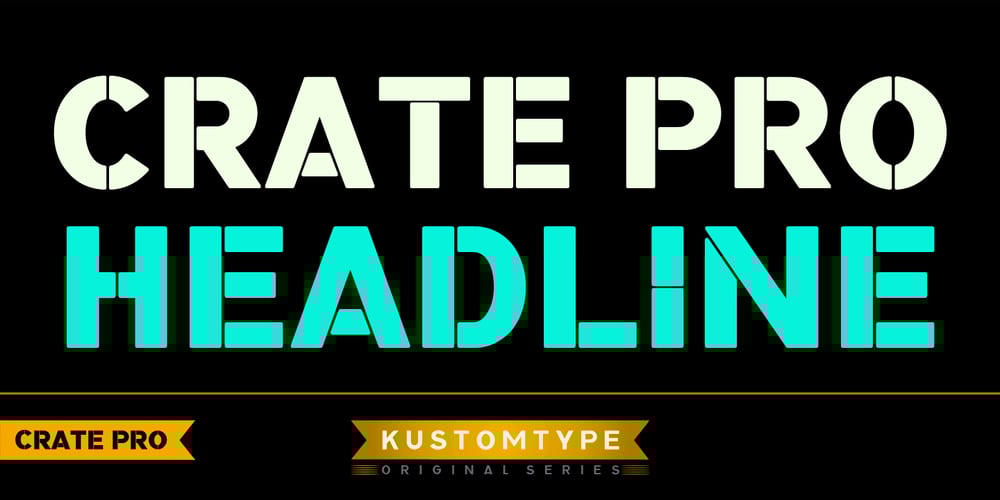
Crate Pro Font Family was designed by Coert De Decker and published by Kustomtype. Crate Pro contains 1 styles and family package options. Crate Pro is a brand-new stencil font with rounded edges and thick main strokes, all glyphs have been contemplated very carefully so that all characters match in a well-balanced and streaming way. In both shaped weights, the font suits extraordinary well for headings, slogans etc. The cleanly cut and powerful Crate Pro font can easily be used for logotype, games, prints, magazines, web, apps, packaging, posters, T-shirts, signage & design projects. The font is original and custom made by Kustomtype.